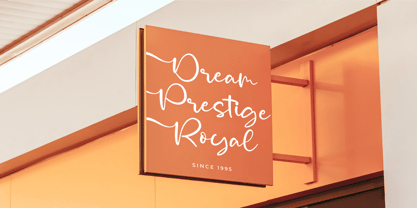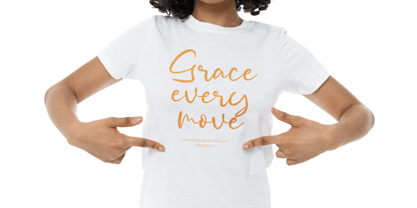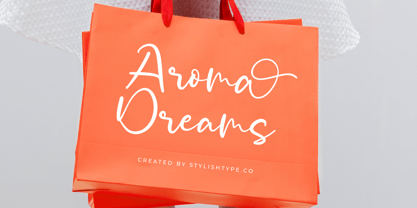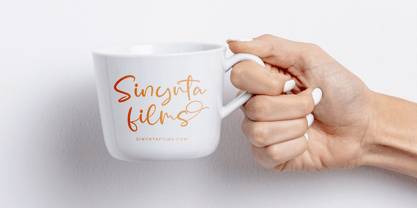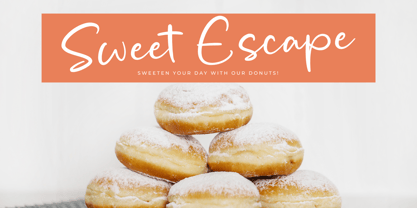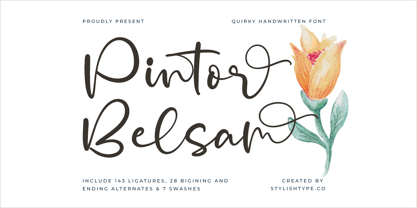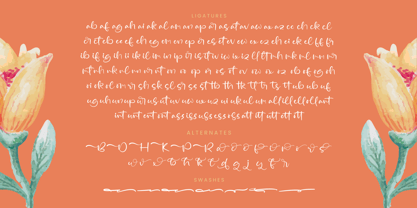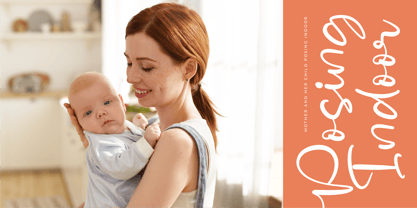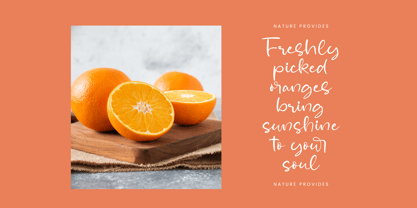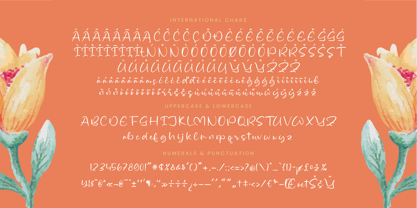
Pintor Belsam
by Stylishtype Studio
The Pintor Belsam Font Family was designed by Heru Utama Putra and published by Stylishtype Studio. Pintor Belsam contains 2 styles and family package options. More about this family
Pintor Belsam - Quirky Handwritten Font , from Stylishtype , Suitable for any projects such as: logos, branding projects, homeware designs, product packaging, mugs, quotes, posters, shopping bags, t-shirts, book covers, name card, invitation cards, greeting cards, label, photography, watermark, special events, and all your other luxury and beautiful projects that need a Luxury Script taste.